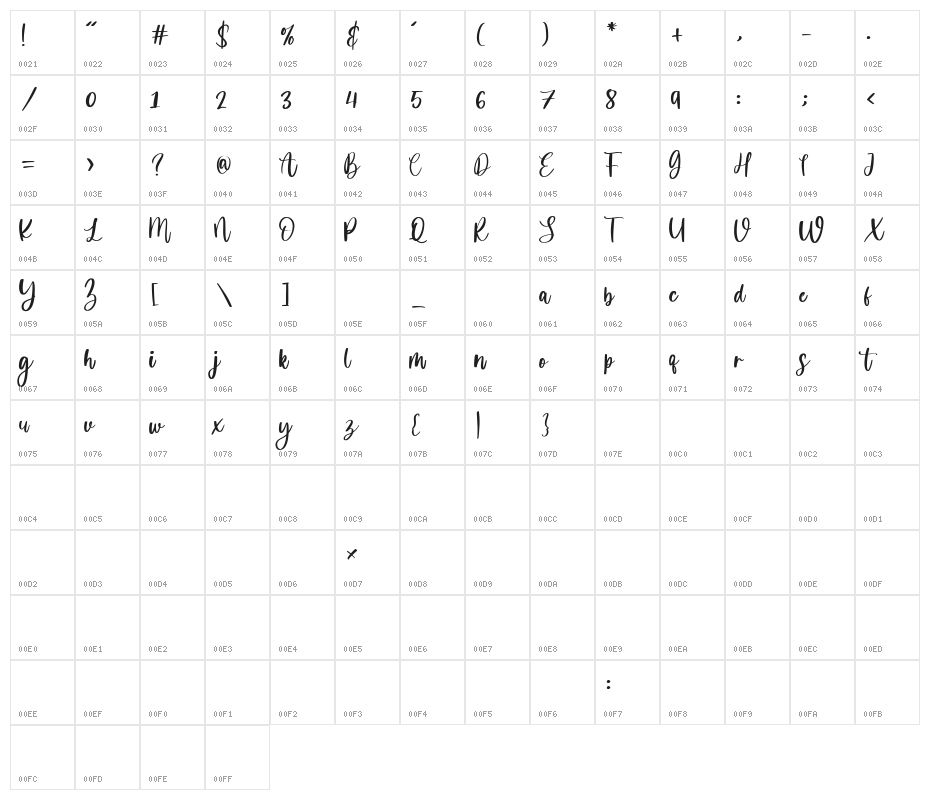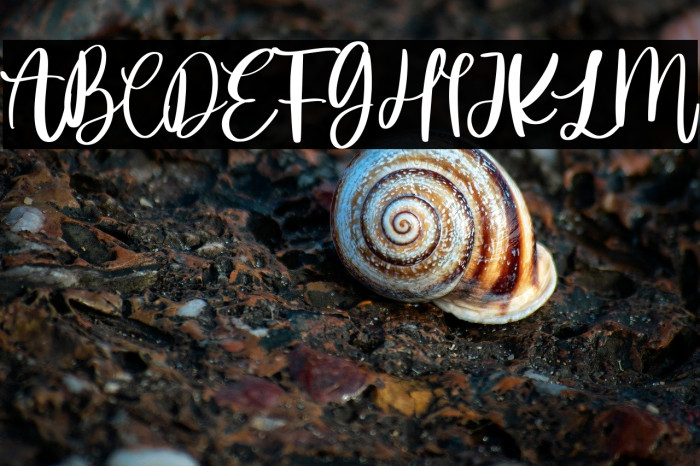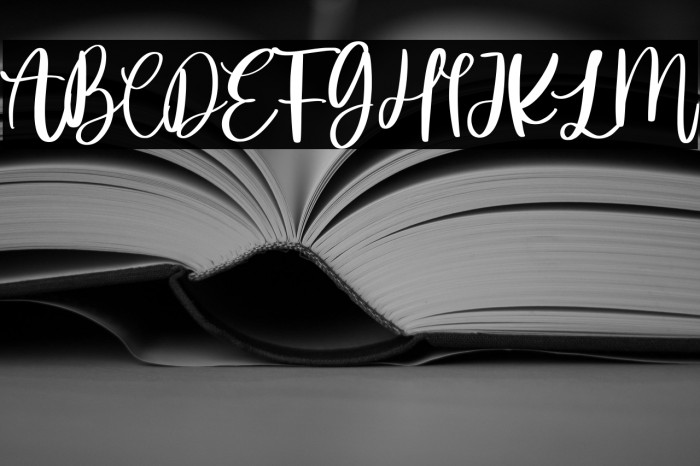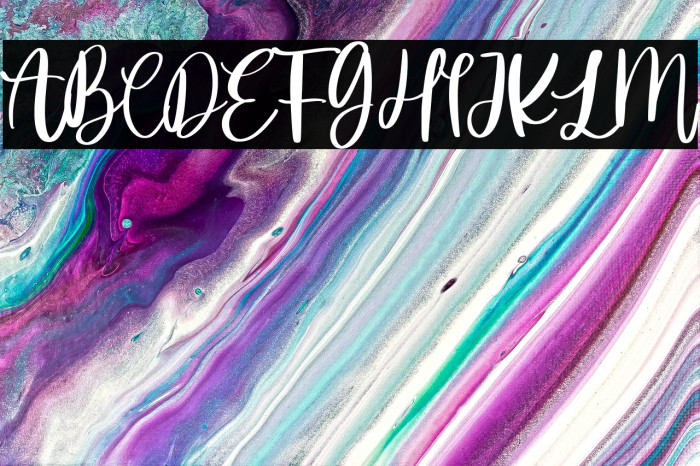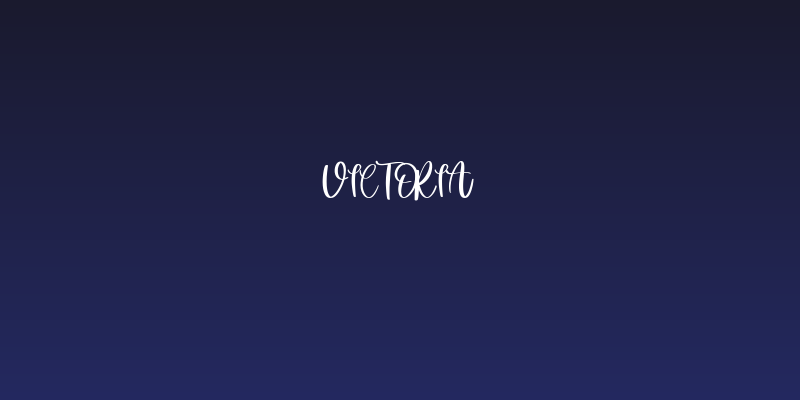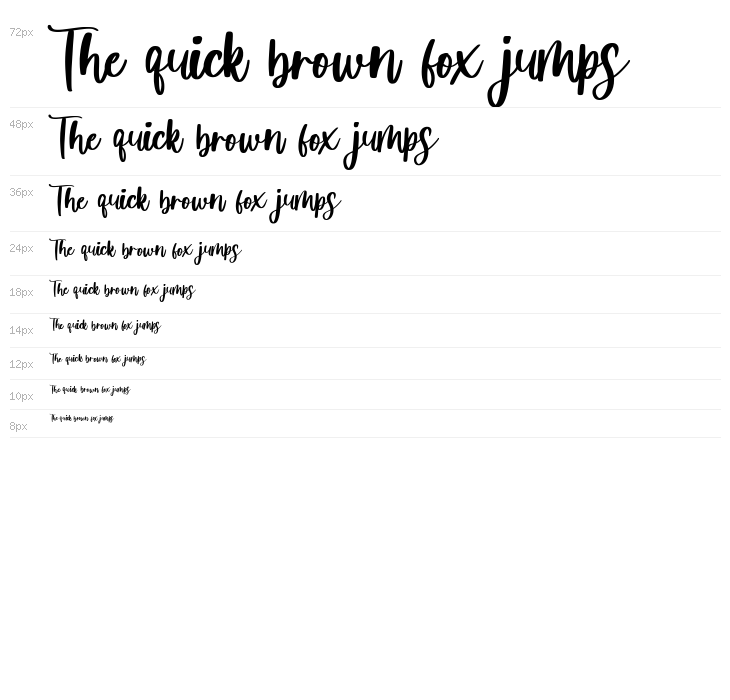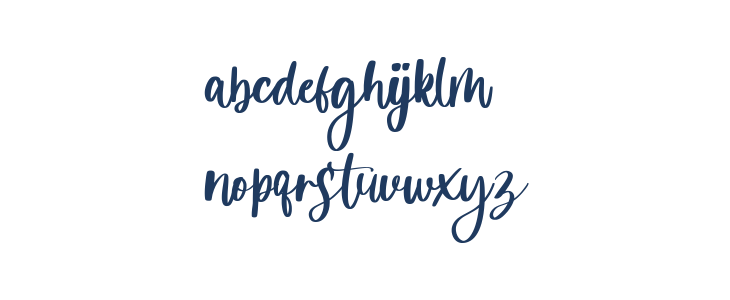
Victoria Font
Victoria Description
This font features an elegant and flowing script style, characterized by its smooth, cursive strokes and artistic flair. The uppercase letters are bold and expressive, with a distinct slant that adds a sense of movement and grace. The lowercase letters maintain a consistent flow, complementing the uppercase with their rounded forms and subtle loops. Numbers are clear and legible, while special characters retain the same decorative quality, making them suitable for creative projects. Overall, this font exudes a sense of sophistication and charm, perfect for adding a personal touch to any design.